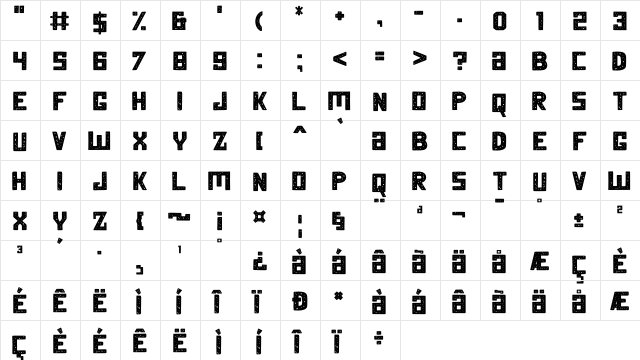
Summer Square Rough Regular
Design Context for Summer Square Rough Typeface
Summer Square Rough trades polish for personality, using distressed and eroded forms to bring grit and attitude to creative work.
Suited to punk-influenced zines, underground music branding, streetwear, and raw, anti-corporate design.
Pro Tip: Pair Summer Square Rough with intentionally raw or lo-fi design elements. Fighting against it with overly polished surroundings will undermine its personality.